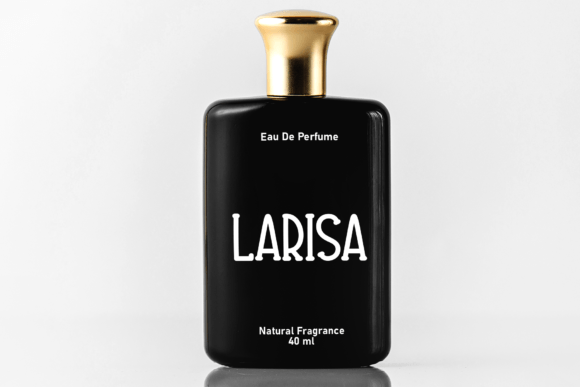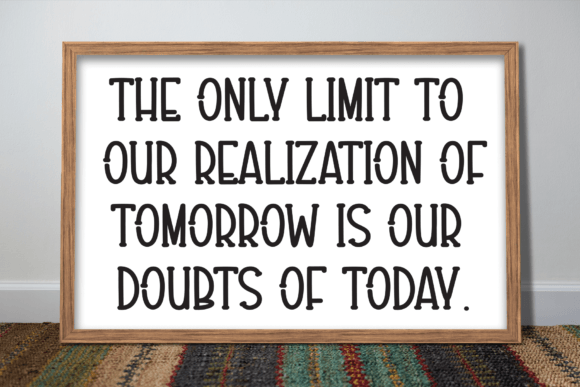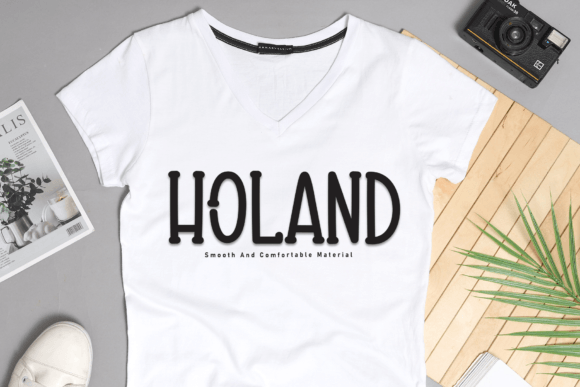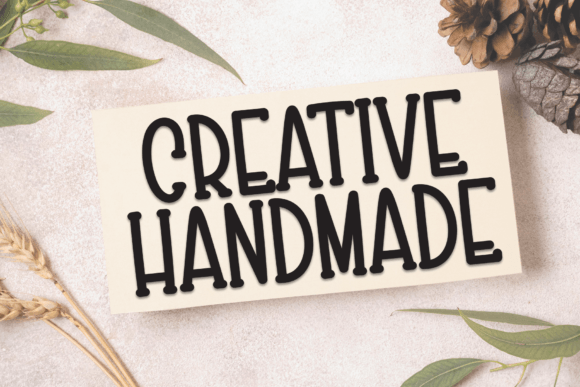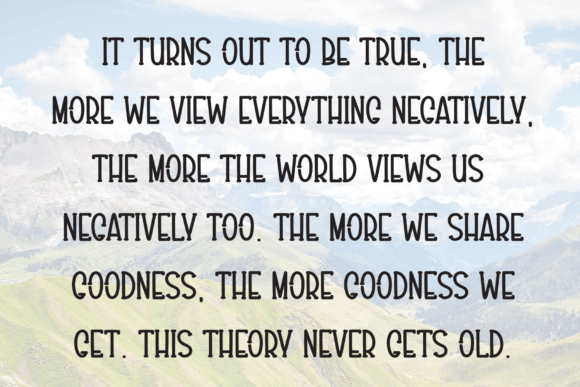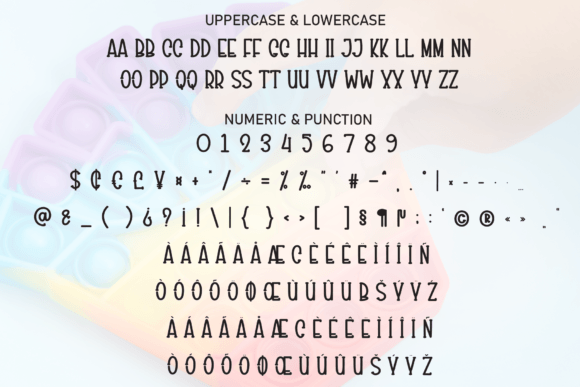
The Magic of Baby Rainbow Font: A Designer’s New Best Friend
I’ll never forget the time I was working on a whimsical birthday party invitation for a client’s little one. I had all the design elements in place – the colors, the graphics, the overall aesthetic – but something was missing. It wasn’t until I stumbled upon the Baby Rainbow font that the entire design came together. There’s just something special about this casual, handwritten font that captures a relaxed and friendly vibe, don’t you think? 🤗
So, what makes Baby Rainbow font so lovable? Let’s dive into the good stuff! ✨
- ✅ Easygoing style: This font exudes warmth and authenticity, making it perfect for personal projects, social media, and invitations.
- ✅ Natural, flowing strokes: The handwriting-style font has a relaxed, organic feel that adds a charming touch to any design.
- ✅ Highly versatile: Whether you’re designing for digital or print, Baby Rainbow font adapts seamlessly.
Of course, no font is perfect, and Baby Rainbow has a few minor quirks to consider: 🤔
- ⚠️ Limited formal use: This font is best suited for casual designs; it may not be the best fit for more formal projects.
- ⚠️ Some letter spacing adjustments may be needed: Depending on your design, you might need to tweak the letter spacing to get the perfect look.
Baby Rainbow font comes with some fantastic OpenType features, including:
- Stylistic alternates: Switch between different letterforms to add visual interest to your design.
- Glyphs: Access a range of special characters, such as ligatures and ornaments, to enhance your design.
The Story Behind Baby Rainbow Font
Legend has it that Baby Rainbow font was created by a designer who wanted to capture the magic of childhood. With a passion for handwriting and a love for bright colors, they crafted a font that would bring joy to designers and their clients. And so, Baby Rainbow font was born – a charming, whimsical font that’s perfect for adding a touch of personality to any design.
Q: What type of projects is Baby Rainbow font best suited for?
A: Baby Rainbow font is perfect for personal projects, social media, invitations, and any design that requires a friendly, approachable vibe.